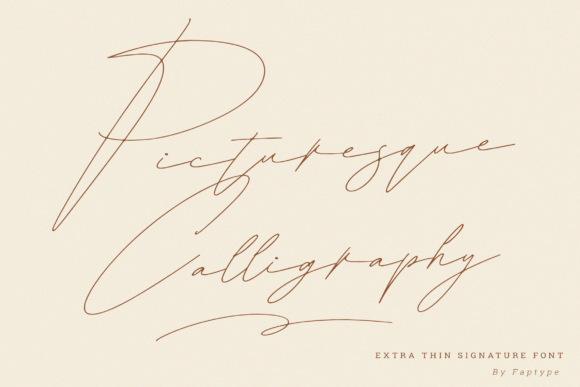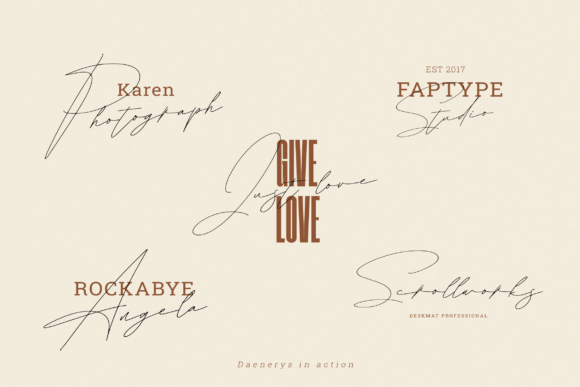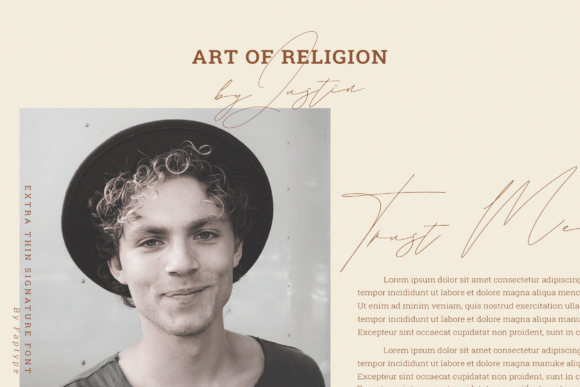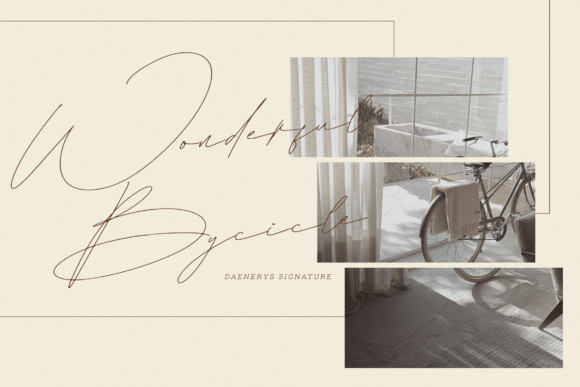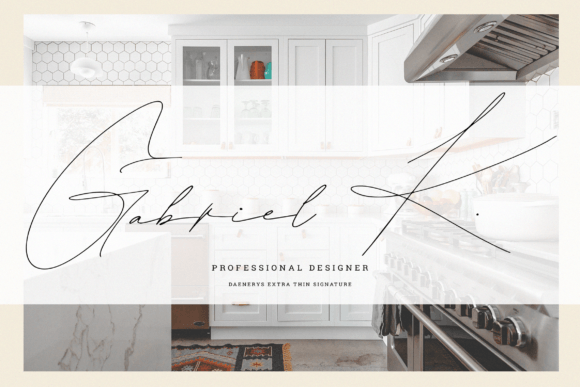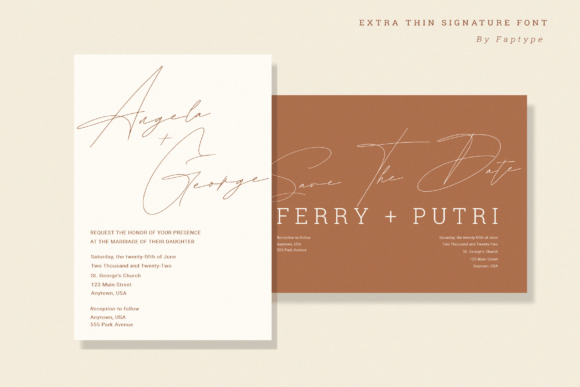
Discover the Elegance of Daenerys Font: A Perfect Choice for Designers and Crafters
Are you looking for a font that exudes elegance, sophistication, and beauty? Look no further than Daenerys Font. This stunning, thin, and elegant signature font is perfect for a wide range of design projects, from invitations and wedding stationery to branding, packaging, and web design. In this article, we’ll dive into the features and benefits of Daenerys Font, and explore why it’s a must-have for designers and crafters.
The Characteristics of Daenerys Font
Daenerys Font boasts a delicate, calligraphic style with smooth, flowing lines that give it a sense of grace and beauty. The letters have a slight slant, which gives them a hand-written feel, making it suitable for special occasions and projects that require a personal touch. The font’s thin lines make it easy to read in small sizes, and its elegant design makes it perfect for overlaying on top of other design elements.
The Power of Swashes
One of the most striking features of Daenerys Font is the abundance of swashes. These decorative flourishes extend from the letters, adding a unique and ornate touch to your designs. The swashes come in a variety of shapes and sizes, and they can be used to add emphasis and personality to specific letters or words. This makes Daenerys Font perfect for creating elegant, eye-catching titles and headlines that will capture the attention of your audience.
Daenerys Font is a versatile font that can be used in a wide range of design projects. Its elegant design makes it perfect for:
- Invitations and wedding stationery: Add a touch of elegance and sophistication to your special occasion stationery with Daenerys Font.
- Branding and packaging: Use Daenerys Font to create beautiful and memorable brand identities that will leave a lasting impression on your customers.
- Web design: Daenerys Font is perfect for web design projects, from elegant headings and titles to beautiful blog posts and articles.
Why Designers and Crafters Love Daenerys Font
Daenerys Font has become a favorite among designers and crafters due to its unique combination of elegance, versatility, and ease of use. Here are just a few reasons why:
- Elegant design: Daenerys Font’s delicate, calligraphic style makes it perfect for projects that require a touch of sophistication and elegance.
- Easy to read: The font’s thin lines make it easy to read in small sizes, making it perfect for body text and other applications where readability is key.
- Customizable: With a wide range of swashes and ligatures, Daenerys Font can be customized to fit your unique design style and needs.
Tips and Tricks for Using Daenerys Font
Here are a few tips and tricks for getting the most out of Daenerys Font:
- Experiment with swashes: Don’t be afraid to try out different swashes and ligatures to add personality and emphasis to your designs.
- Mix and match: Combine Daenerys Font with other fonts and design elements to create unique and interesting visual effects.
- Pay attention to spacing: Make sure to adjust the spacing between letters and words to ensure that your design looks elegant and refined.
| Font Name | Daenerys Font |
| Author | Ardana Creative |
In conclusion, Daenerys Font is a beautiful, elegant, and versatile font that is perfect for designers and crafters. Its delicate, calligraphic style, abundance of swashes, and ease of use make it a must-have for any design project. Whether you’re creating invitations, branding, packaging, or web design, Daenerys Font is sure to add a touch of elegance and sophistication to your work. So why wait? Download Daenerys Font today and start creating stunning designs that will leave a lasting impression on your audience.